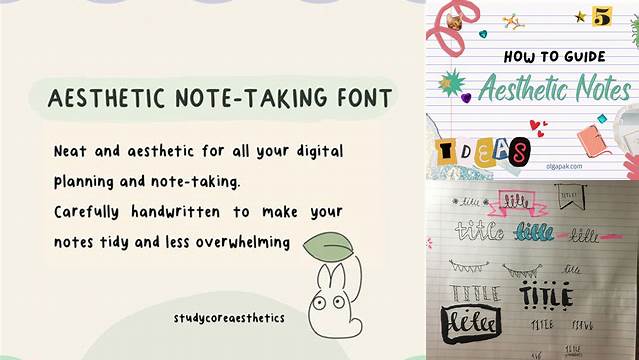
Aesthetic Handwriting Fonts For Notes: Your Guide
Are you ready to jazz up your note-taking game, guys? Let's dive into the wonderful world of aesthetic handwriting fonts! We're not just talking about any old scribbles here; we're exploring fonts that are all about visual appeal and making your notes pop. Whether you're a student looking to make study sessions more enjoyable, a creative soul wanting to add flair to your journals, or just someone who loves a good-looking page, choosing the right font can seriously transform your notes from drab to fab. So, buckle up, because we're about to explore some of the coolest aesthetic handwriting fonts out there, and I'll share tips on how to use them effectively.
Why Aesthetic Handwriting Fonts Matter
Choosing the right aesthetic handwriting fonts is way more important than you might think. It's not just about making your notes look pretty, although, let's be real, that's a big part of the appeal. The right font can actually make your notes more engaging, and easier to read. Imagine flipping through a notebook and instead of being greeted with a wall of boring text, you're met with a visually appealing layout that draws you in. This increased visual interest can boost your focus and make it easier to retain information. Plus, it’s a fantastic way to personalize your notes, making them uniquely yours. Think about it: your notes are a reflection of you, and the fonts you choose should reflect your personality and style. It's like choosing the perfect outfit for your notes – you want something that looks good and helps you feel confident and ready to tackle whatever comes your way.
Beyond the aesthetics, using a well-chosen font can improve organization. Different fonts can be used to highlight headings, subheadings, and key points, making it easier to scan and quickly find the information you need. This is especially helpful when you're reviewing notes for exams or projects. Instead of struggling to sift through a mass of text, you can easily identify the most important sections. In the digital world, this concept is even more relevant. Many note-taking apps allow you to customize fonts, sizes, and styles, giving you endless possibilities to create the perfect note-taking experience. This customization can boost productivity, as you spend less time searching and more time learning and creating. So, whether you're a student, a professional, or a creative hobbyist, investing time in choosing the best aesthetic handwriting fonts will seriously pay off in the long run. It's a small change that can have a big impact on your productivity, your creativity, and the overall enjoyment of your note-taking.
Top Aesthetic Handwriting Fonts to Try
Alright, let's get down to the good stuff! Here's a list of some of the most awesome aesthetic handwriting fonts that you should totally check out. I've included a mix of styles to give you a good starting point. Remember, the best font is the one that resonates with your personal style and helps you stay engaged with your notes.
1. The Classic Calligraphy Fonts
Let's kick things off with some elegant calligraphy fonts. These are perfect if you love a touch of sophistication in your notes. They often feature beautiful, flowing strokes that give a polished, professional look. A good calligraphy font can make your notes feel extra special, elevating them from simple text to a piece of art. There are tons of calligraphy fonts available, each with its own unique flair. Some feature thick and thin strokes, mimicking traditional pen and ink calligraphy, while others offer a more modern take with cleaner lines. These fonts are especially great for headings, titles, or for adding a touch of flair to important quotes or key points. If you're aiming for a classy vibe, calligraphy fonts are definitely the way to go. Consider them your go-to option when you want to impress and add a touch of elegance to your note-taking style. They're perfect for formal notes, presentations, or anything where you want to give off a sense of refinement.
2. The Playful Script Fonts
Next up, we have script fonts that are all about fun and personality. These fonts mimic handwritten styles, often with loops, swirls, and a more relaxed feel. They're perfect for adding a personal touch to your notes, making them feel less formal and more friendly. Script fonts can range from whimsical and lighthearted to more structured and elegant, so you're sure to find one that matches your style. They are also great for journal entries, creative writing, and making your notes feel less like a chore and more like a fun activity. Imagine using a playful script font for your daily to-do lists, or highlighting important ideas with a font that makes you smile. Script fonts are your best friends if you want to inject some personality into your note-taking game. You can easily download these fonts from sites like Google Fonts or Font Squirrel, and apply them to your digital notes.
3. The Clean and Modern Fonts
If you prefer a more modern and minimalist look, clean fonts are the perfect choice. These fonts feature simple, uncluttered designs, making your notes easy to read and visually appealing without being overly fussy. They are ideal for everyday notes, study guides, and any situation where readability is key. Clean fonts are all about simplicity and efficiency. They are designed to make your notes look organized and professional, helping you focus on the content without being distracted by fancy embellishments. They are incredibly versatile and work well in both digital and print formats. Clean fonts are your best bet if you're looking for a timeless, functional, and super readable style. These fonts are perfect for ensuring your notes are always clear, concise, and easy to navigate, allowing you to focus on the information rather than the aesthetics.
4. The Bold and Decorative Fonts
For those of you who love making a statement, bold and decorative fonts are the way to go. These fonts come in all shapes and sizes, from chunky block letters to quirky designs. They're perfect for highlighting important sections, adding visual interest, and making your notes stand out. Bold fonts can be used to create a strong visual hierarchy, making key information pop off the page. Decorative fonts can add a touch of personality and flair to your notes, reflecting your unique style. Just remember to use them sparingly to avoid overwhelming your notes. The key here is to find the perfect balance between visual appeal and readability. It's all about expressing your creativity and adding a personal touch to your note-taking routine. These are your go-to fonts for making your notes a little more expressive, fun, and unforgettable!
Tips for Using Aesthetic Handwriting Fonts Effectively
So, you've got your amazing fonts, but how do you use them effectively? Here are some tips to make the most of your new aesthetic handwriting fonts and create notes that are both beautiful and functional.
1. Pair Fonts Wisely
One of the most important things to keep in mind is how your fonts work together. You don't want your notes to look chaotic. Instead, select a primary font for the bulk of your text and a secondary font for headings and highlights. Consider using a clean, readable font for the body text and a decorative or script font for titles or important points. Make sure the fonts complement each other in terms of style and readability. Too many clashing fonts can distract from the content, making your notes harder to read and less enjoyable. Experiment with different combinations to find pairings that work best for you.
2. Maintain Consistency
Consistency is key! Once you've chosen your fonts, stick with them throughout your notes. This creates a cohesive look and makes your notes more organized. Use the same fonts for similar elements, such as headings, subheadings, and body text. This helps establish a visual hierarchy and makes it easier to find and understand information. If you change fonts on every page, your notes can look cluttered and disorganized, which can be distracting and make it harder to study. Consistency provides a framework that improves the overall effectiveness of your note-taking process.
So, there you have it! A deep dive into the world of aesthetic handwriting fonts for your notes. By choosing the right fonts, pairing them wisely, and using them effectively, you can transform your notes from plain to amazing. Remember, the goal is to make your notes more enjoyable, engaging, and personalized. Have fun experimenting with different fonts, and let your creativity shine through! Happy note-taking, and don't forget to share your favorite font finds with us!